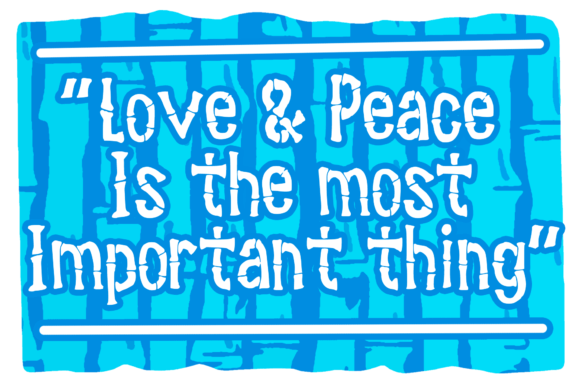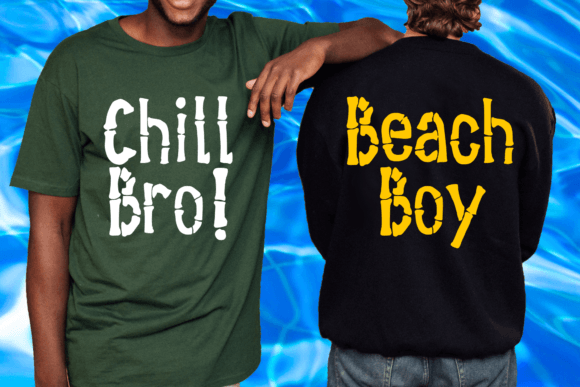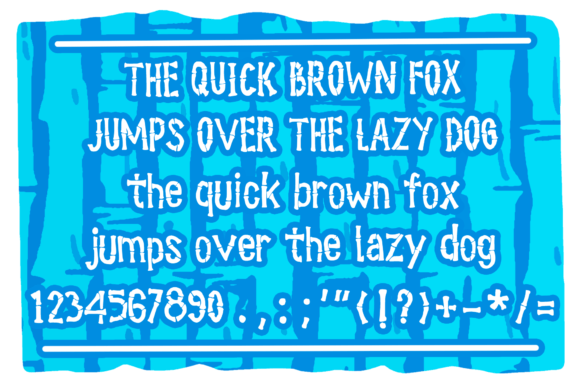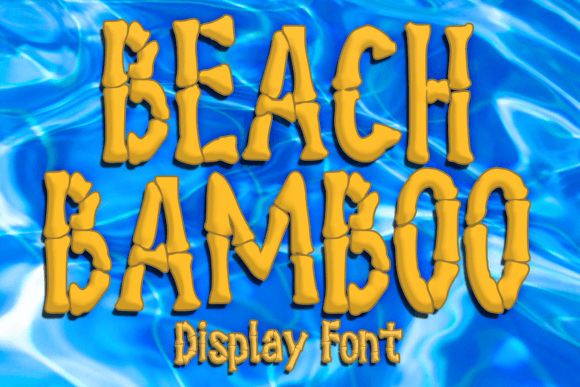
Introducing Beach Bamboo Font: The Perfect Addition to Your Design Toolbox
Are you tired of using the same old fonts in your designs? Look no further! Beach Bamboo Font is a fun and playful bamboo-themed font that’s sure to add a touch of whimsy to your creations. With its incredibly versatile style, this font is perfect for a wide range of design projects, from t-shirts and book designs to packaging, food menus, and greeting cards.
The Versatility of Beach Bamboo Font
One of the best things about Beach Bamboo Font is its versatility. This font can be used for just about any design project that needs a casual touch. Here are just a few ideas to get you started:
- T-shirts and apparel: Add a fun and playful touch to your t-shirt designs with Beach Bamboo Font. It’s perfect for creating eye-catching graphics and slogans that will make your designs stand out.
- Book designs: Use Beach Bamboo Font to add a touch of personality to your book covers, illustrations, and typography. It’s perfect for children’s books, cookbooks, and any other type of book that needs a playful touch.
- Packaging: Make your product packaging stand out with Beach Bamboo Font. It’s perfect for creating labels, tags, and other packaging materials that need a fun and casual touch.
- Food menus: Add a touch of tropical flair to your restaurant’s menu with Beach Bamboo Font. It’s perfect for creating menus that need a fun and playful vibe.
- Greeting cards and invitations: Use Beach Bamboo Font to create beautiful and unique greeting cards and invitations. It’s perfect for birthdays, weddings, and any other special occasion.
- Stickers and posters: Create eye-catching stickers and posters with Beach Bamboo Font. It’s perfect for promoting events, products, or services in a fun and playful way.
Why Choose Beach Bamboo Font?
So why choose Beach Bamboo Font over other fonts? Here are just a few reasons:
- Unique and playful style: Beach Bamboo Font has a unique and playful style that’s sure to add a touch of personality to your designs.
- Highly versatile: This font can be used for a wide range of design projects, from t-shirts and book designs to packaging and posters.
- Easy to read: Despite its playful style, Beach Bamboo Font is easy to read and understand, making it perfect for body text and headlines.
- Customizable: Beach Bamboo Font can be customized to fit your design needs. You can adjust the font size, color, and style to create a unique look.
Tips for Using Beach Bamboo Font
Here are a few tips for using Beach Bamboo Font in your designs:
- Use it sparingly: While Beach Bamboo Font is playful and fun, it can be overwhelming if used too much. Use it sparingly to add a touch of personality to your designs.
- Pair it with other fonts: Beach Bamboo Font pairs well with other fonts, such as sans-serif fonts and script fonts. Experiment with different font combinations to create a unique look.
- Adjust the font size and color: Adjust the font size and color to create a visually appealing design. A larger font size can be used for headlines, while a smaller font size can be used for body text.